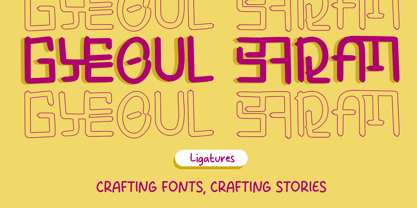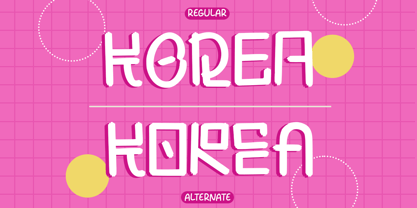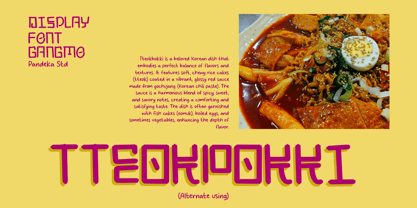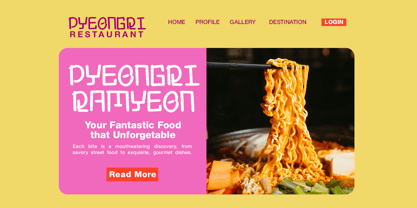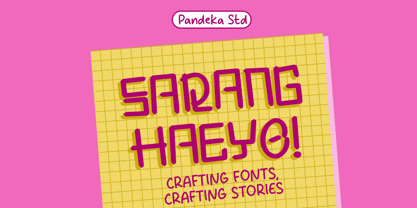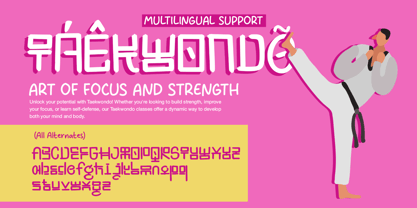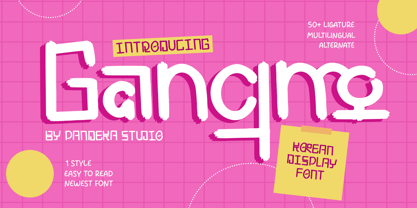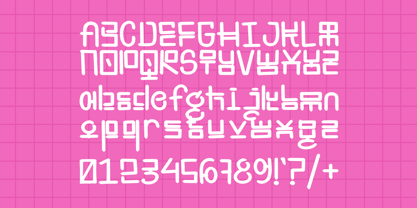
Gangmo
by Pandeka Studio
The Gangmo Font Family was designed by Sagara Nararya and published by Pandeka Studio. Gangmo contains 1 styles.
Gangmo – Korean Bold Display Typeface
Gangmo is a Korean-inspired display font with a bold and playful character, perfect for capturing the vibrant spirit of modern design. Its quirky letterforms and dynamic style make it ideal for K-pop visuals, trendy branding, album art, fashion labels, posters, social media graphics, and playful merchandise. A standout choice for any project needing a unique, youthful, and eye-catching typeface.
• Full Character Set: Uppercase, lowercase, numbers, symbols, and punctuation
• 50+ Ligatures and alternates